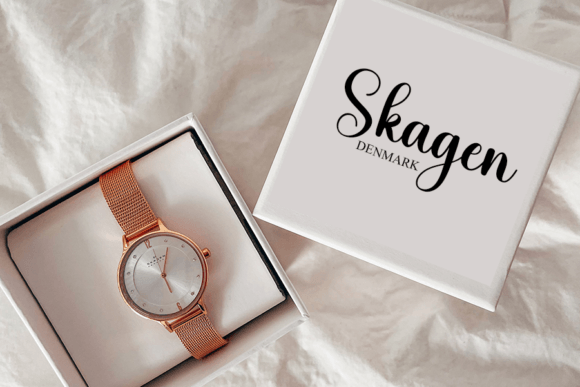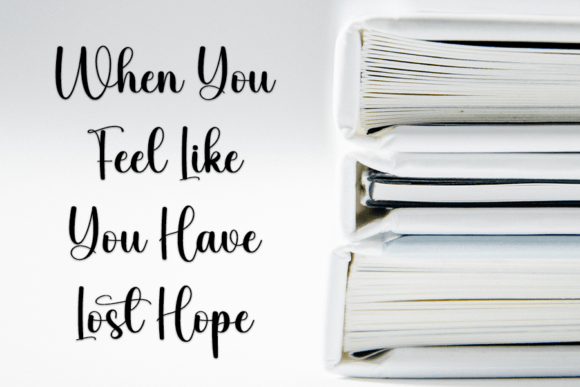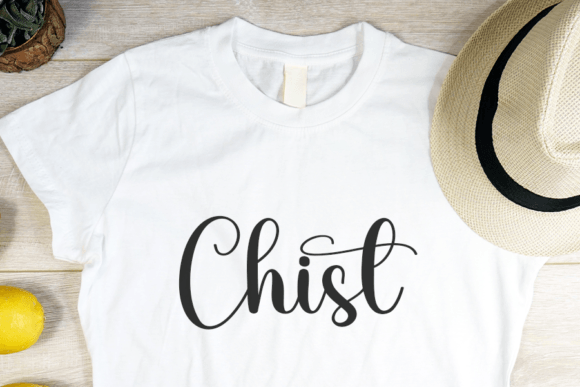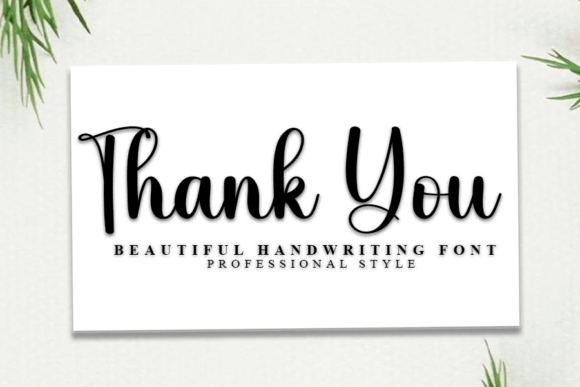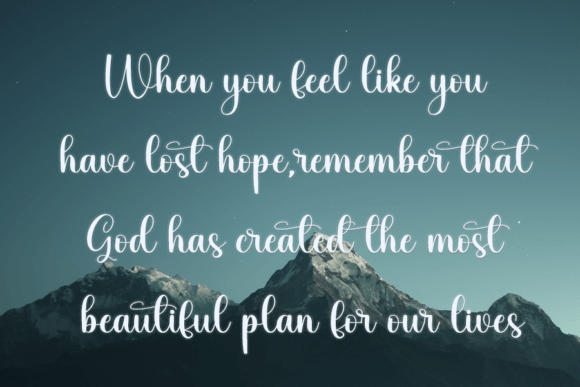
Introduction to Just Font
Do you remember that moment when you finally found the perfect font to match your creative vision? For designers, this feeling is like hitting the jackpot. It’s the moment when everything comes together – colors, textures, and typography – to create a stunning piece of art. This is exactly what happens when you discover the Just Font.
As a modern and cool handwritten font, Just Font is perfect for a wide range of creative projects, from crafting unique greeting cards to designing presentations that make a lasting impression. Its high-quality design makes it a valuable resource for any designer looking to elevate their work. And the best part? It’s available for free download, making it an accessible design resource for everyone.
Key Features of Just Font
- High-quality design with a transparent background, ideal for creative projects that require a sleek and modern look.
- Includes a wide range of characters, including Latin, Cyrillic, and Greek alphabets, as well as punctuation and symbols.
- Supports high-resolution displays, ensuring that your text remains crisp and clear at any resolution, from 72 DPI to 300 DPI.
- Comes in a single font weight, making it easy to use in a variety of design contexts, from body text to headings.
- Perfect for designers, artists, and writers who need a high-quality, free font for their creative projects.
Honest Review: Just Font
I recently stumbled upon Just Font, and I must say, it’s a gem for designers. The moment I downloaded it, I knew I had found a valuable design resource.
What works well is the high quality of the font itself. It’s crisp, clean, and perfect for any creative project that requires a touch of elegance. The transparent background option is also a plus, allowing me to easily customize the font to fit my design needs.
Here are some of the key features that I appreciate:
- High quality design
However, I did encounter a few limitations. The font selection is limited to a single style, which might not be ideal for designers working on complex projects that require multiple font styles. ⚠️
Overall, I’m impressed with Just Font, and I’d highly recommend it to designers looking for a reliable and high-quality design resource. ✨
Tips for Getting the Most Out of Just Font
Use Just Font in combination with other design elements to create a unique and eye-catching design. Experiment with different font sizes and colors to get the most out of Just Font.
Just Font is perfect for use in logos, business cards, social media graphics, and any other design project where a high-quality, transparent font is needed.